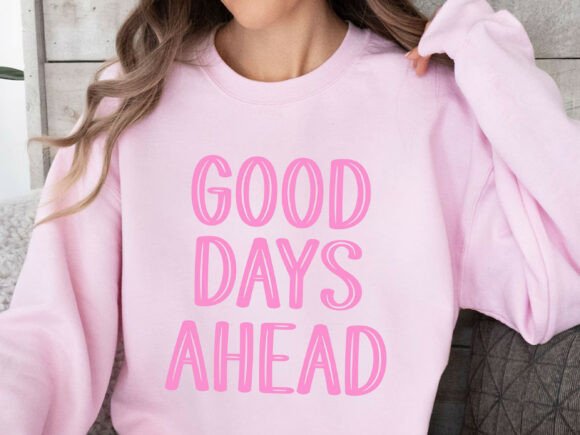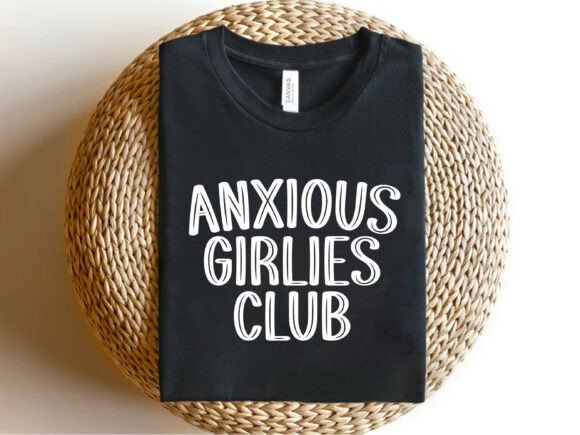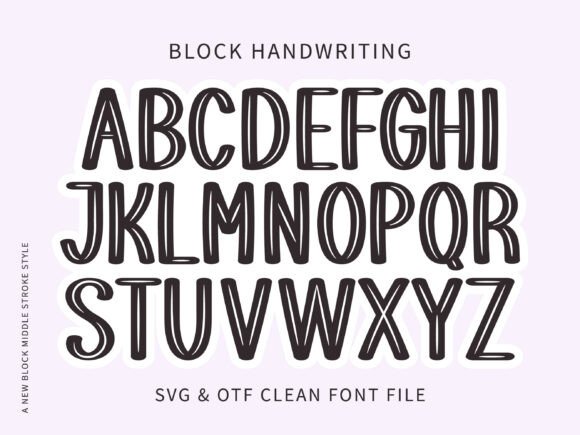
Introducing Block Handwriting Font: Elevate Your Designs with a Fresh, Handcrafted Edge
Are you tired of using the same old fonts in your designs? Do you want to add a touch of personality and whimsy to your projects? Look no further than Block Handwriting, a unique all-caps display font that’s sure to take your designs to the next level. In this article, we’ll explore the features and benefits of Block Handwriting, and show you how to make the most of this versatile font.
A Fresh Take on Traditional Block Lettering
Block Handwriting is a modern take on traditional block lettering, with a distinctive middle-stroke style that sets it apart from other fonts. Each character is built with a sleek inner-line detail that adds a subtle three-dimensional effect and a modern, illustrative feel. This unique feature makes Block Handwriting perfect for designers who want to add a touch of sophistication and elegance to their projects.
Clean, Organic Silhouette
One of the standout features of Block Handwriting is its clean yet organic silhouette. The font has a structured, legible feel that’s perfect for bold social media headlines, playful educational materials, and personalized stickers. At the same time, the font has a whimsical, “doodle-style” aesthetic that’s sure to pop on any background. Whether you’re designing for digital or print, Block Handwriting is a versatile choice that’s sure to impress.
Perfect for SVG Crafting Projects
If you’re a crafter or maker, you’ll love Block Handwriting’s compatibility with SVG files. The font is optimized for cutting machines and other craft software, making it easy to create custom designs and shapes. Use Block Handwriting to add a personal touch to your DIY projects, from custom vinyl decals to handmade cards and invitations.
Bold Social Media Headlines
Block Handwriting is also perfect for social media designers who want to make a statement. The font’s bold, eye-catching style is sure to grab attention and drive engagement. Use Block Handwriting to create bold headlines, titles, and captions that will make your content stand out in a crowded feed.
Playful Educational Materials
Block Handwriting is a great choice for educational materials, from worksheets and activity sheets to posters and presentations. The font’s playful, illustrative style is sure to engage students and make learning fun. Use Block Handwriting to create interactive and visually appealing materials that will help your students stay motivated and excited about learning.
Personalized Stickers and Labels
Block Handwriting is also perfect for creating personalized stickers and labels. The font’s clean, legible style makes it easy to read and recognize, even at small sizes. Use Block Handwriting to create custom stickers and labels for your projects, from scrapbooking and journaling to gift-giving and party planning.
Tips for Using Block Handwriting
- Use Block Handwriting as a display font to add emphasis and attention to your designs.
- Combine Block Handwriting with other fonts to create a unique and visually appealing typography scheme.
- Don’t be afraid to get creative and try new things – Block Handwriting is a versatile font that’s perfect for experimenting with different design styles and techniques.
Block Handwriting is a unique and versatile font that’s perfect for designers, crafters, and makers who want to add a fresh, handcrafted edge to their projects. With its distinctive middle-stroke style, clean organic silhouette, and bold, eye-catching style, Block Handwriting is sure to elevate your designs and make them stand out. Whether you’re designing for digital or print, Block Handwriting is a great choice for any project that needs a touch of personality and whimsy.